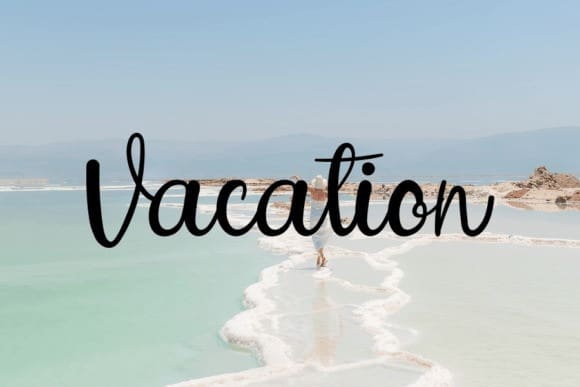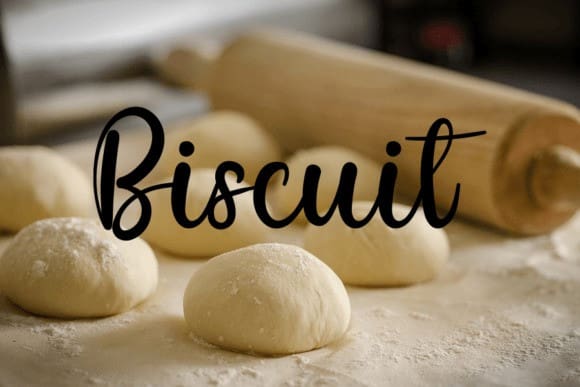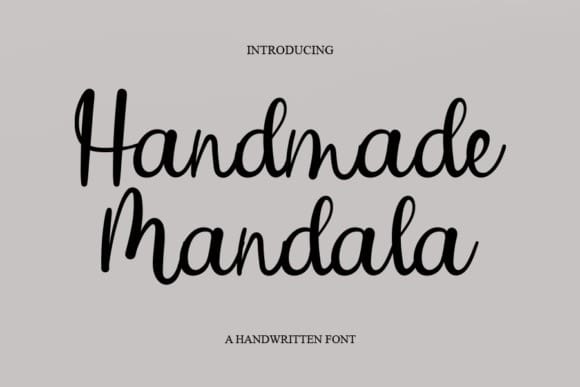
Handmade Mandala Font
Handmade Mandala Font is a simple and friendly handwritten font. Whether you’re using it for crafts, digital design, presentations, or creating greeting cards, this font has the potential to become your go-to font, whatever the occasion.